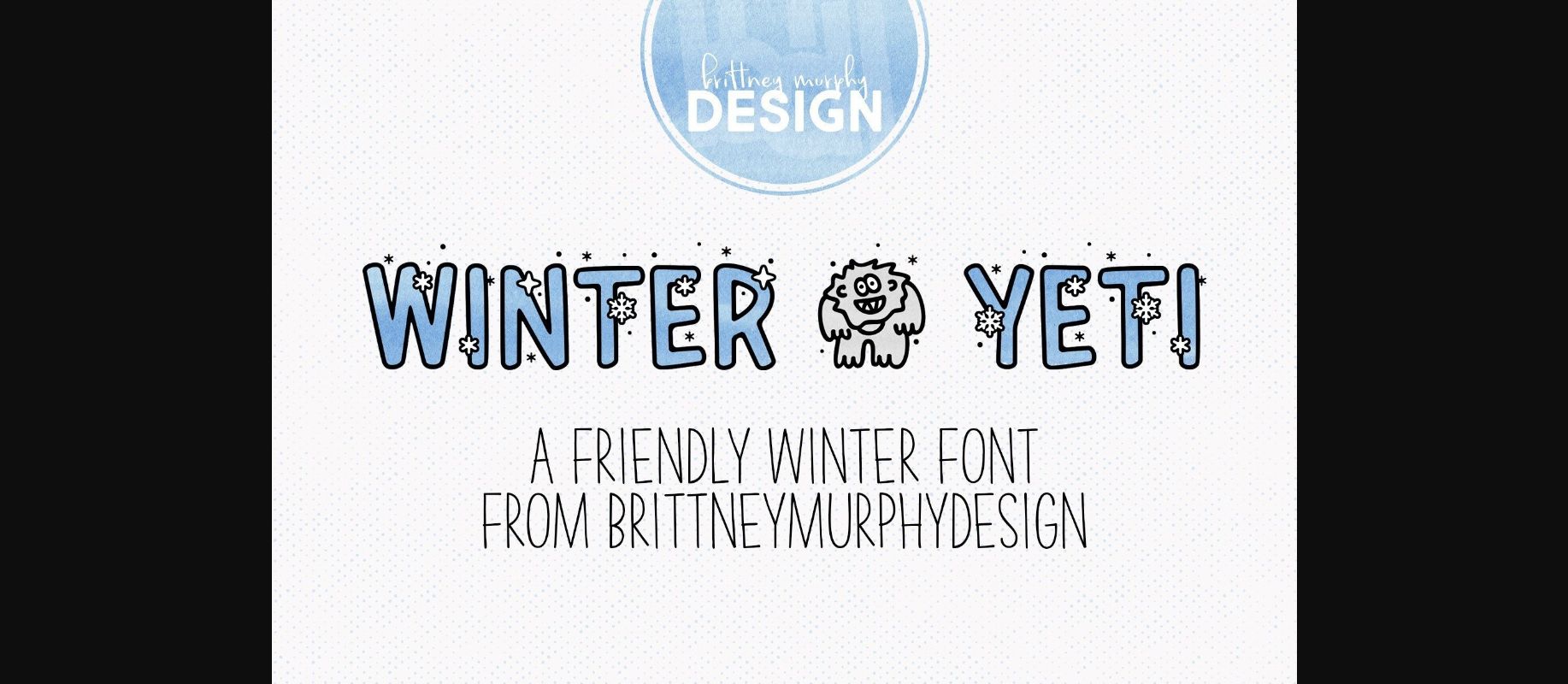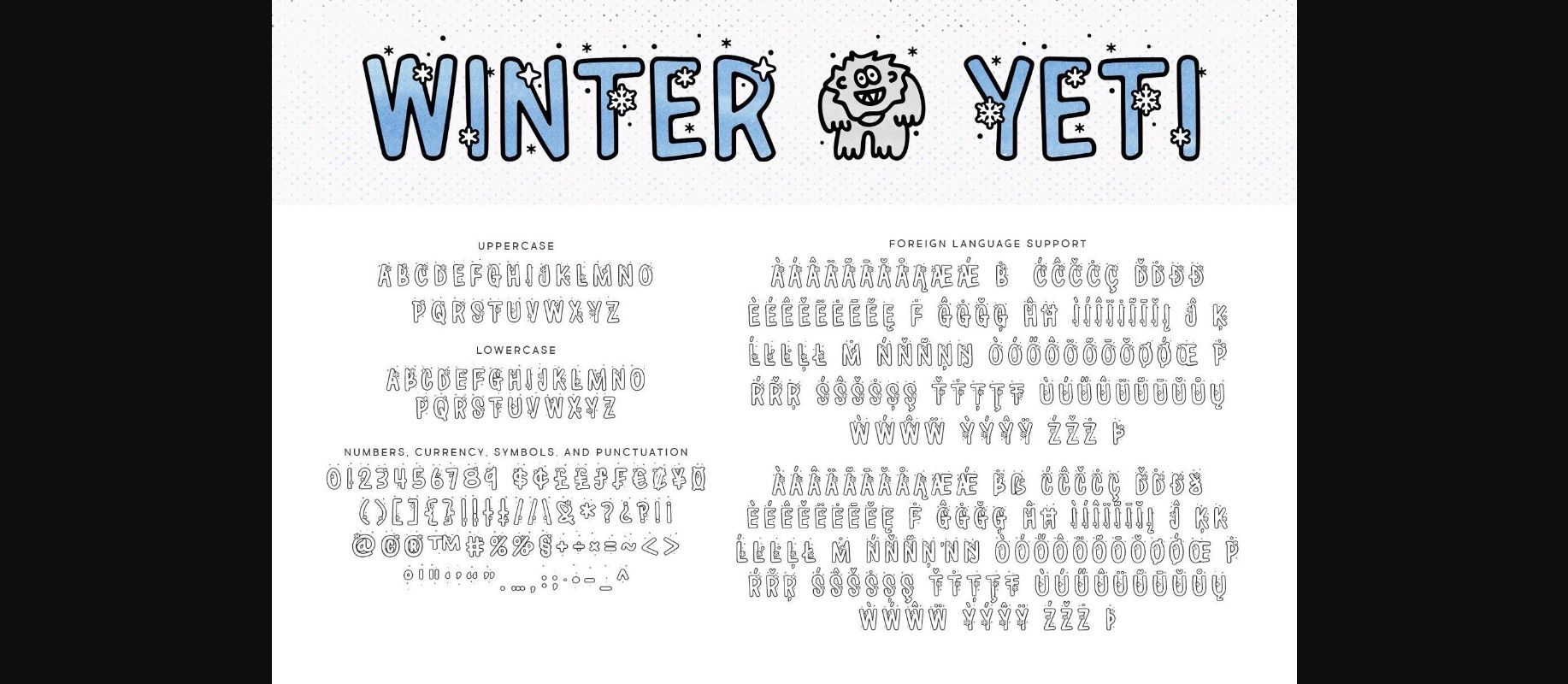
Winter Yeti Font
About Winter Yeti Font
Winter Yeti is a fun, snowy decorative font perfect for adding a wintry feel to your designs. Add it to any of your creative projects, and they will be outstanding!